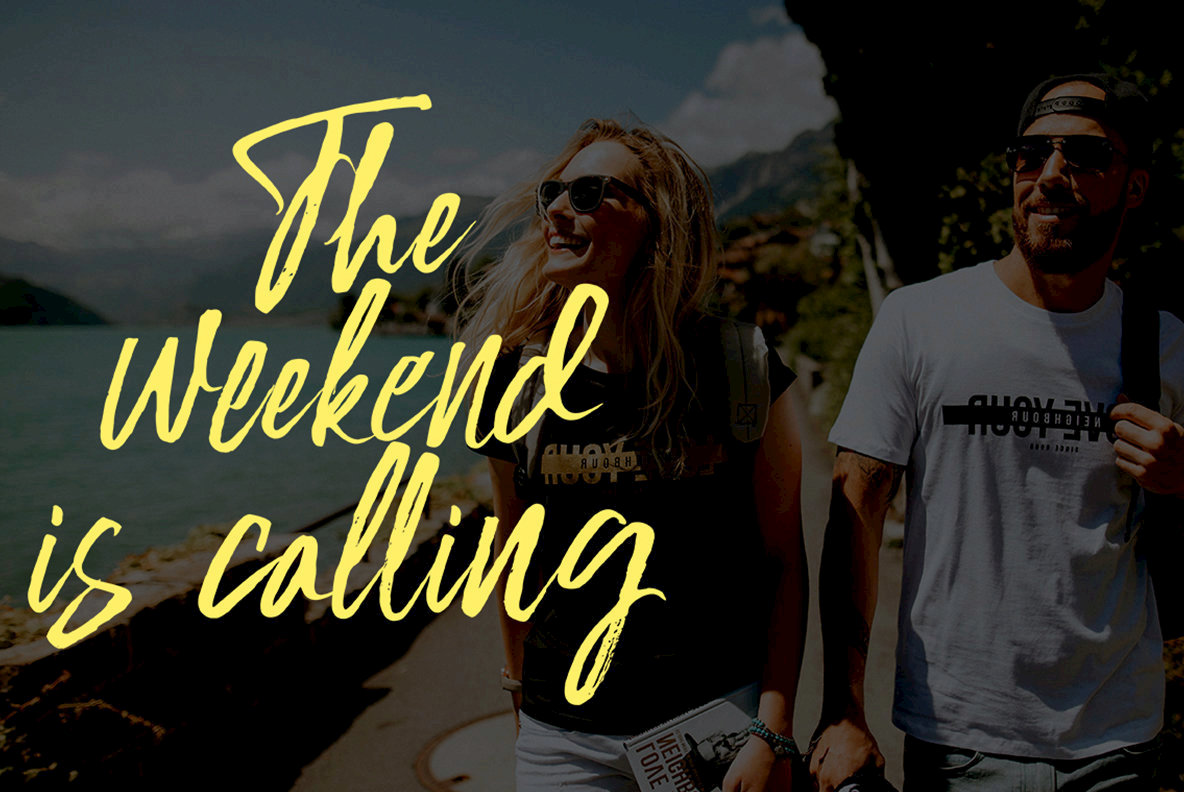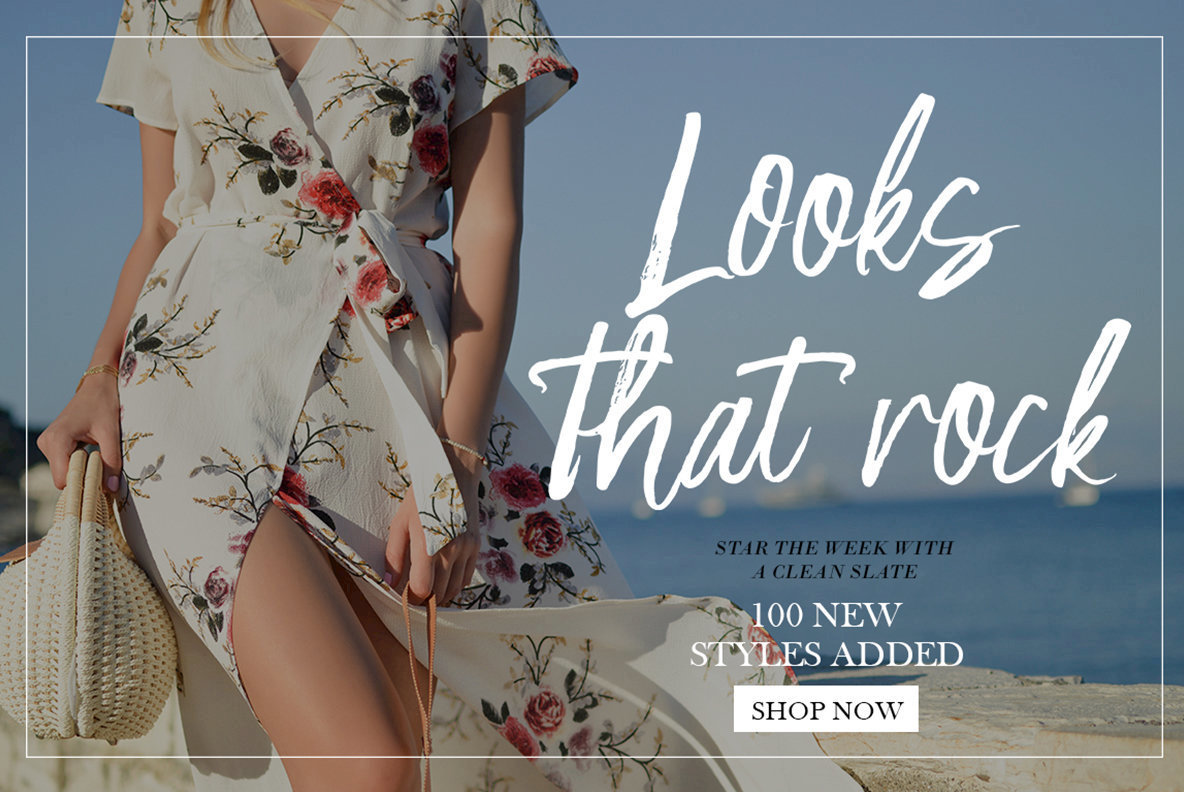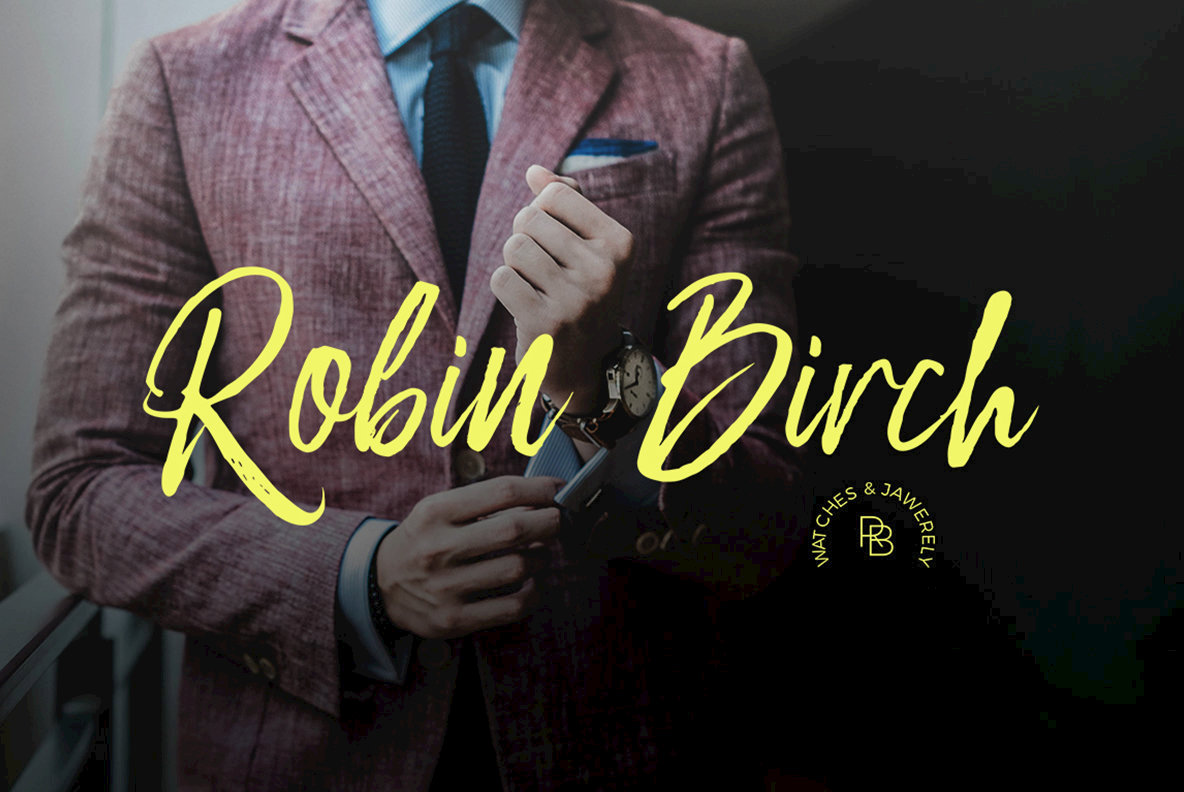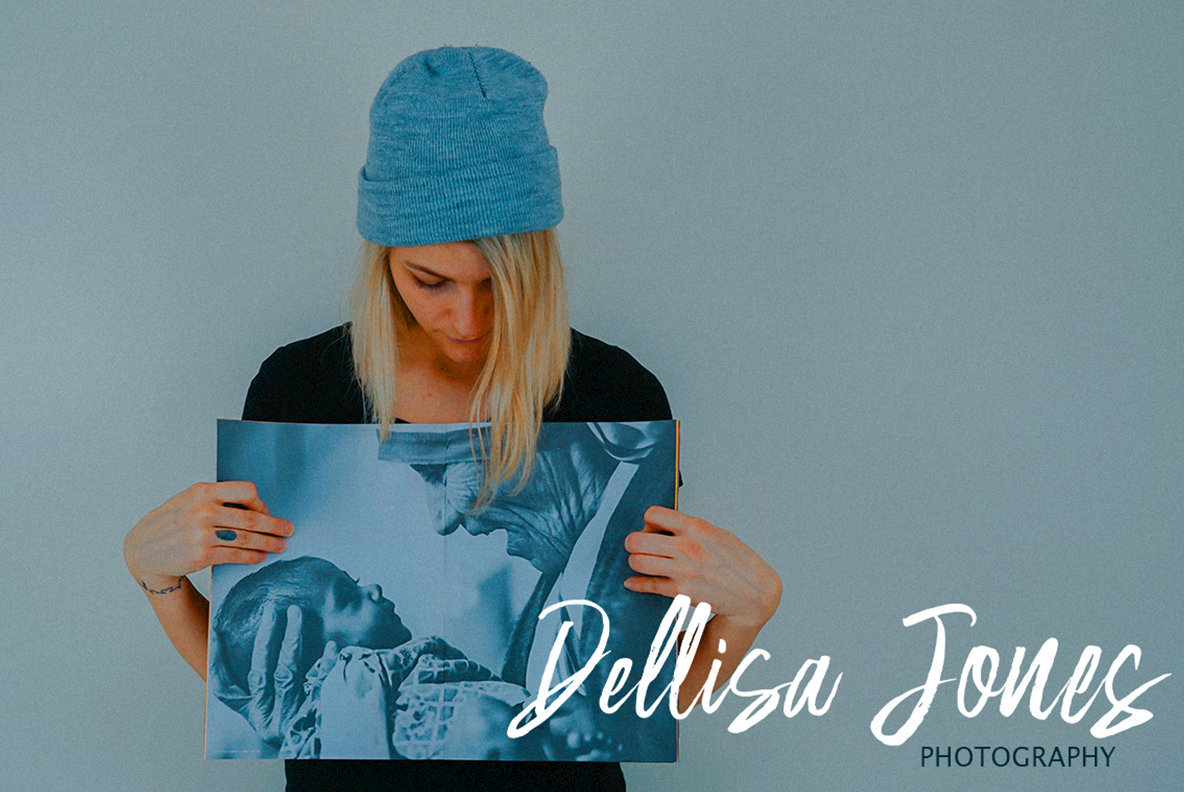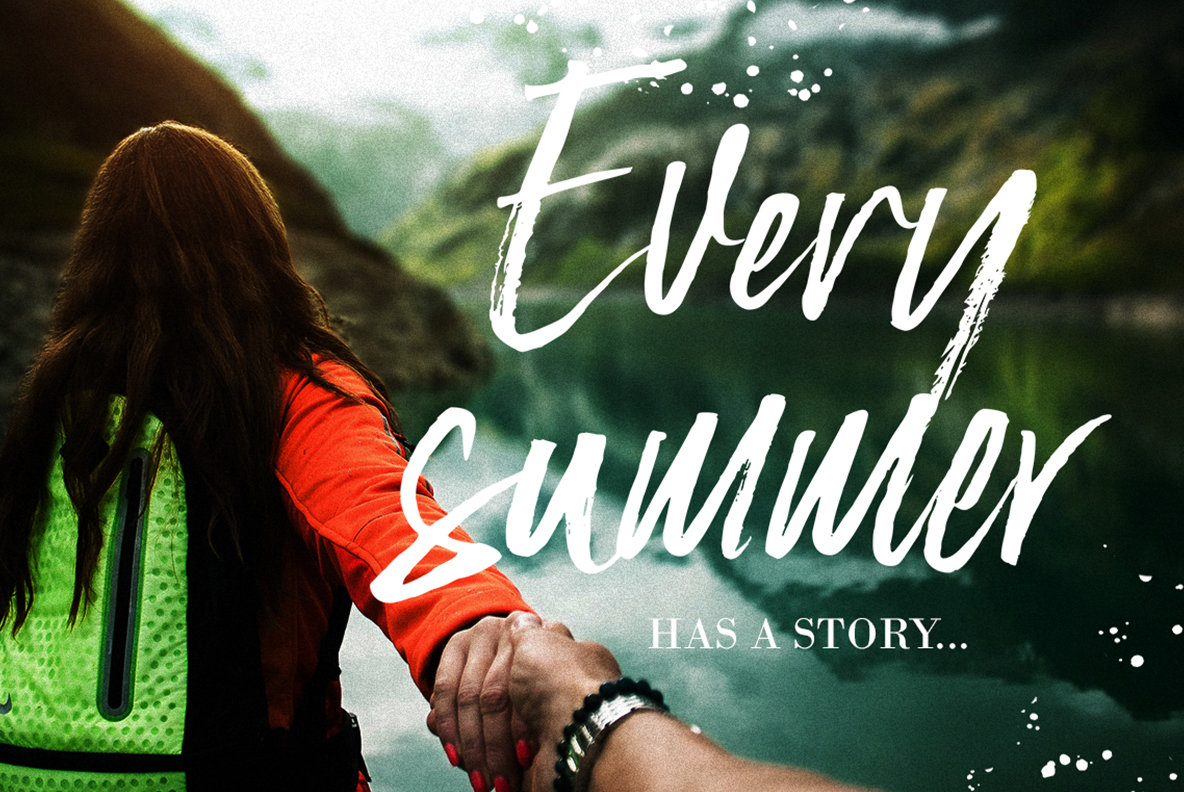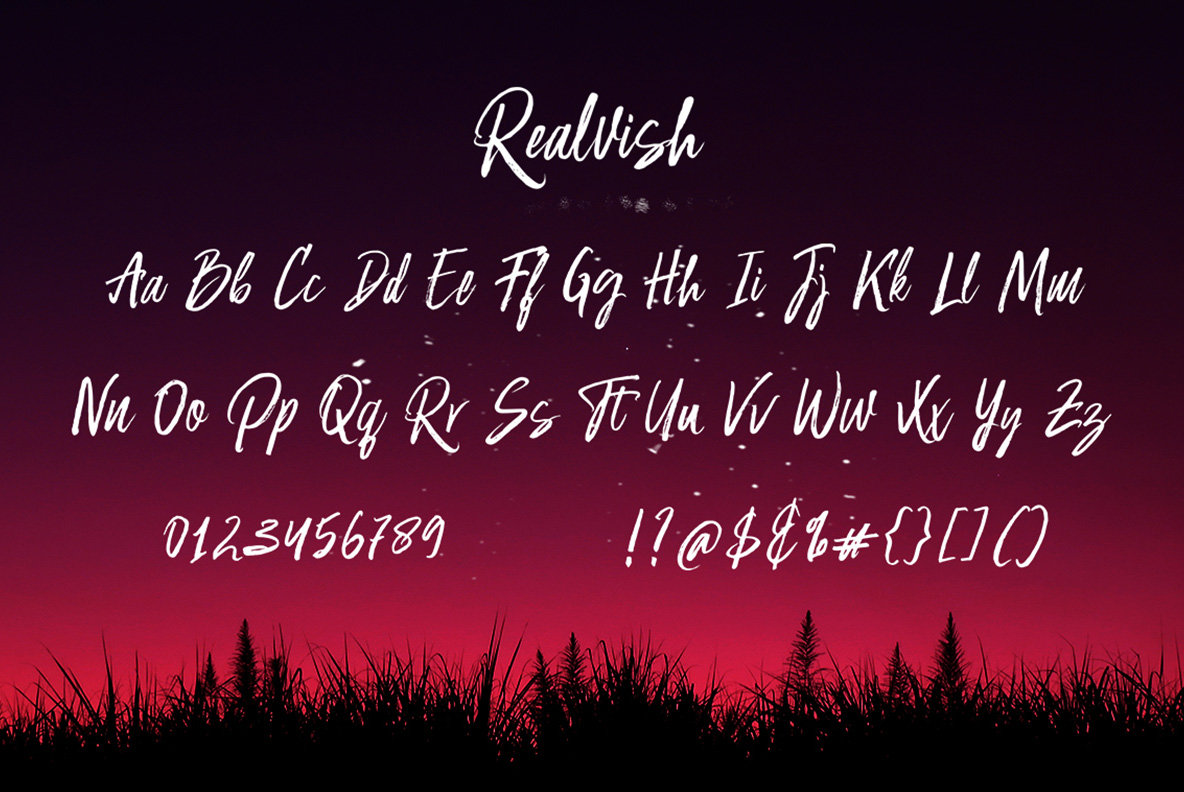
Realvish Font
Realvish
Capture the essence of personal expression with Realvish Script, a handwritten script font embodying the fluent and organic feel of a signature. Hand-painted with precision, it extends a warm and welcoming aura to your designs. Ideal for brand projects, logos, product packaging, and so much more, Realvish seamlessly fits into any project that requires an intimate, yet professional touch. Realvish offers robust Open Type features, including ligatures and alternate characters. Enhancing your design palette further, this font comes with Realvish—a complementary display font that harmonizes beautifully with Realvish Script. This duo is perfect for creating posters, invitations, greeting cards, or any design that could benefit from a personal flair. Embrace the charm of Realvish Script and explore its capabilities with ease. This font provides the tools you need to give any project a unique and inviting style.Realvish: A Handwritten Script With Signature Style